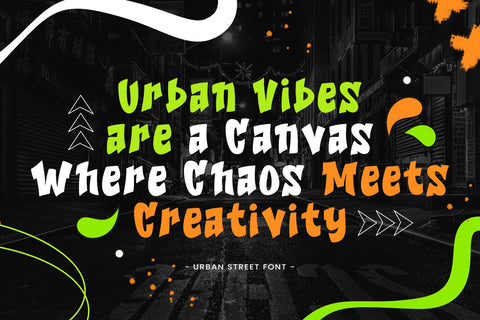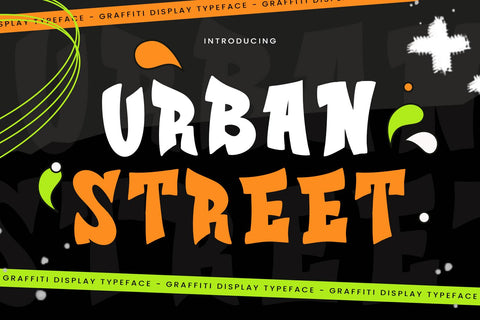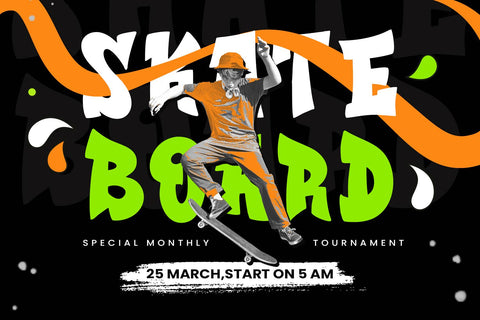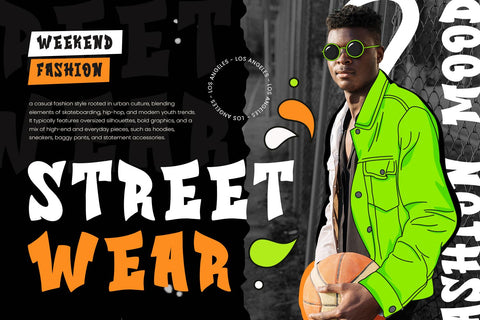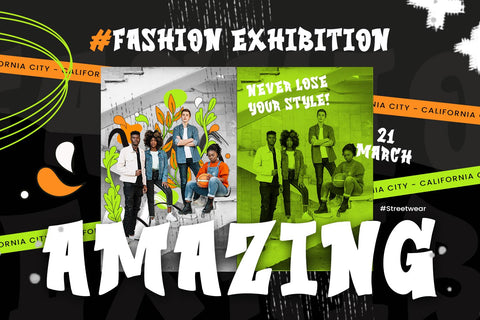
Urban Street - Graffiti Font
"Urban Street" is a striking font that captures the raw, gritty essence of street culture. With its display and decorative style, this font is perfect for projects that seek to evoke the spirit of graffiti, urban art, and rebellious self-expression. The bold, irregular shapes and edgy details bring to life the rough charm of the streets, making it an excellent choice for designs that need to command attention.
Inspired by the art found on city walls and alleyways, "Urban Street" is ideal for projects such as posters, music albums, event flyers, or clothing branding. Its sharp, dynamic edges and unpredictable contours embody the energy and creativity that characterize the world of street art. Each letter feels like a unique brushstroke, capturing a sense of freedom and boldness.
Whether you're creating an urban-themed event or branding a new streetwear line, "Urban Street" ensures your message is delivered loud and clear. This font brings attitude and authenticity to every design, making it an essential tool for those who want to stand out from the crowd.